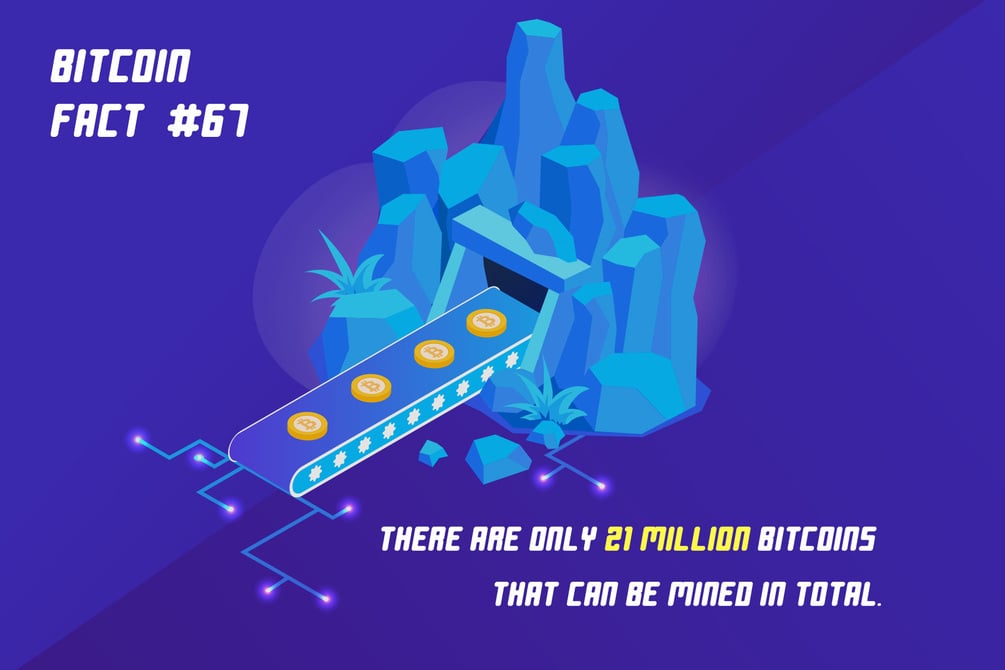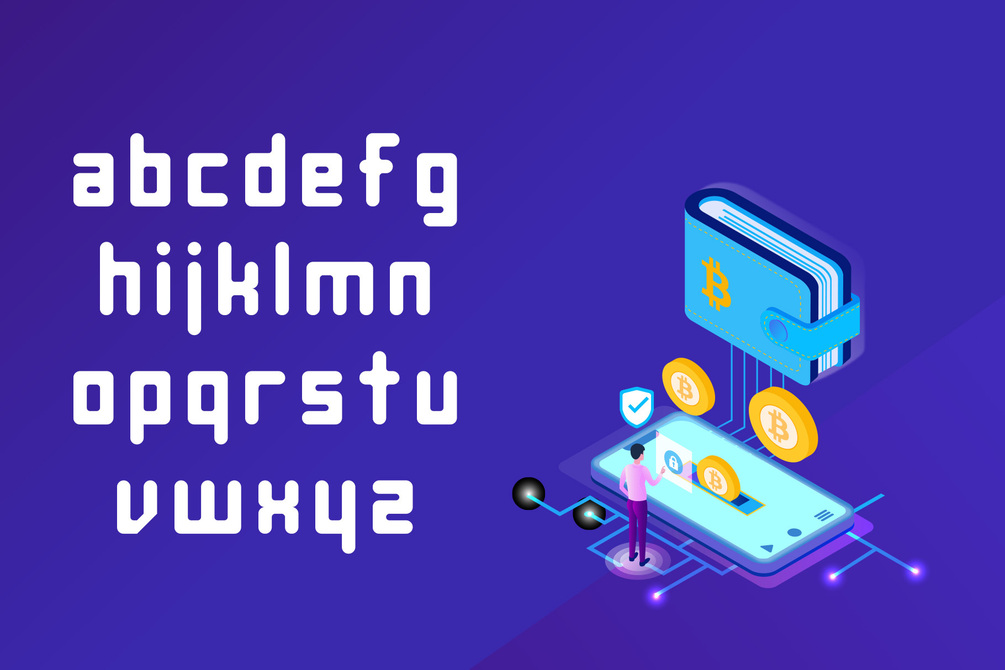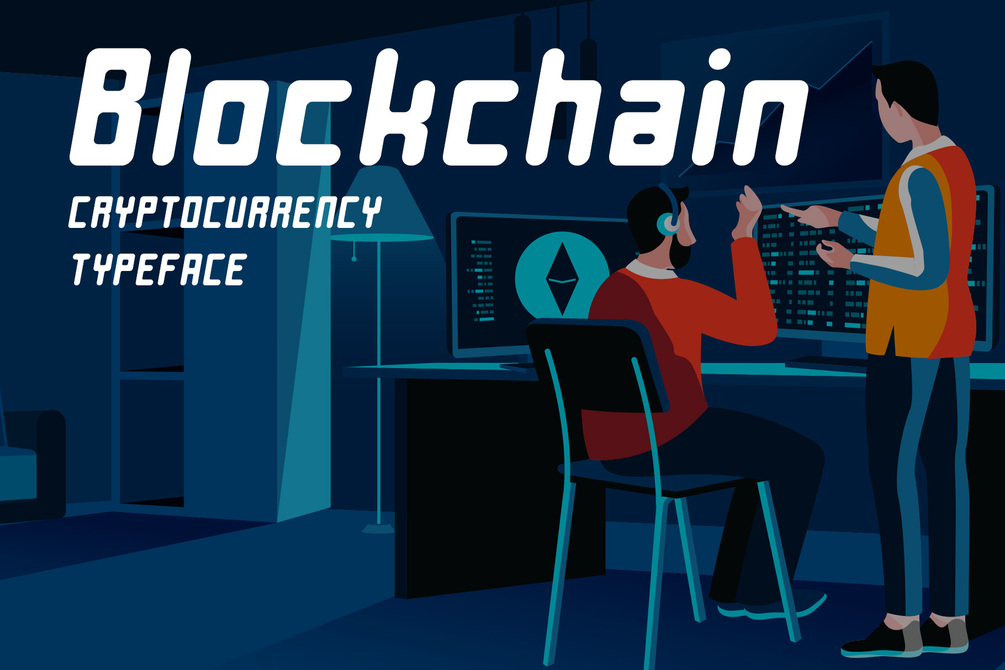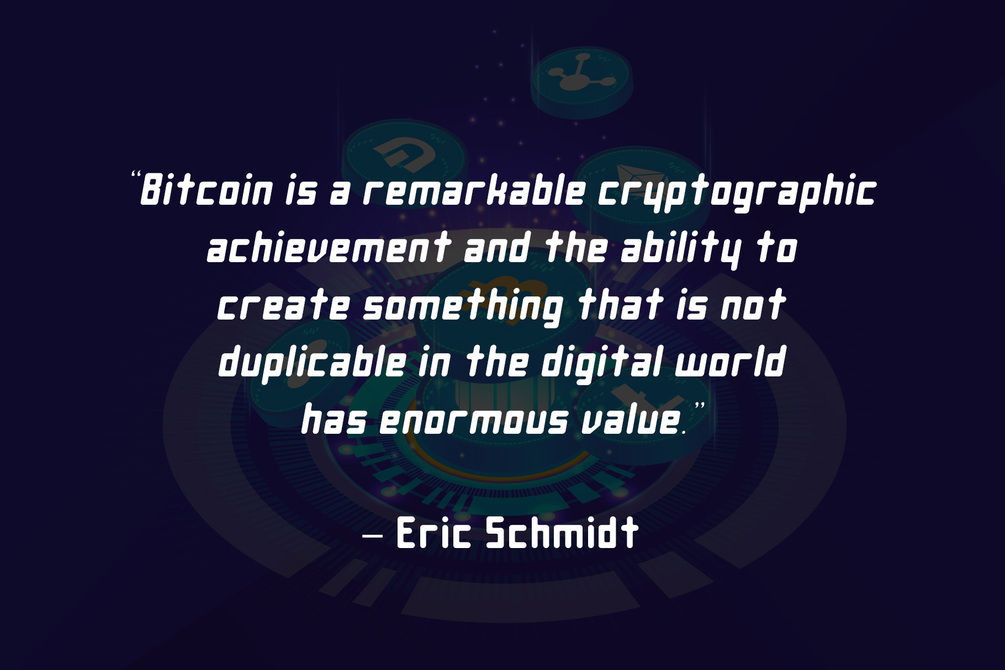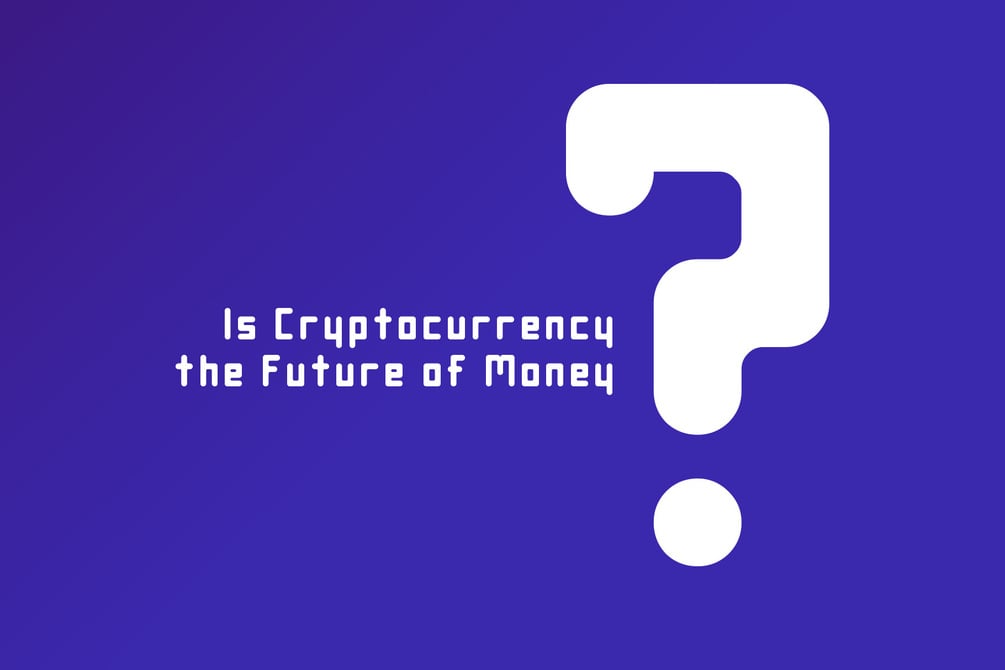
Blockchain - Cryptocurrency Typeface
Blockchain is a curved geometric typeface. The tall but well-built characters are softened with smooth curves giving the typeface a warm/inviting feeling. This font is perfect for headlines and text. The font is legible, meaning you can easily read it even when it's small.